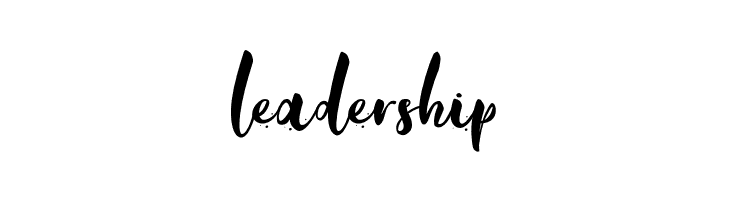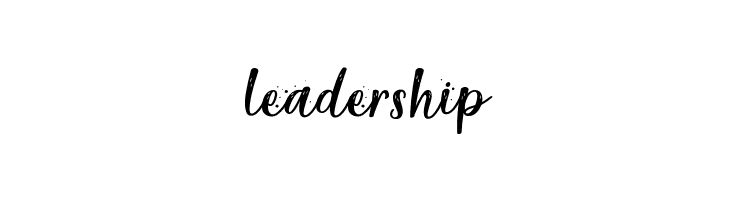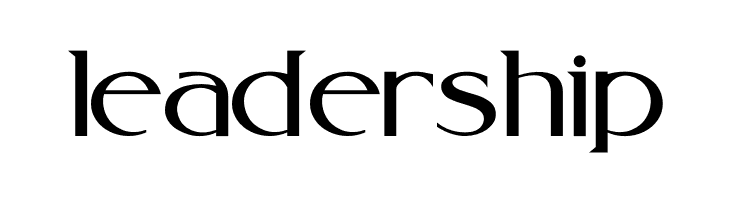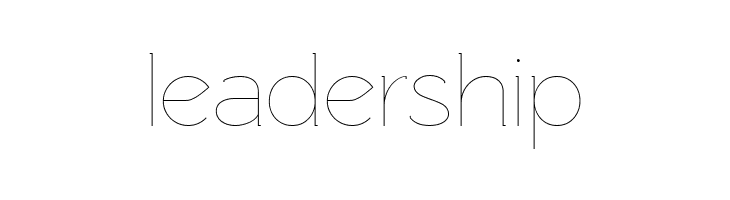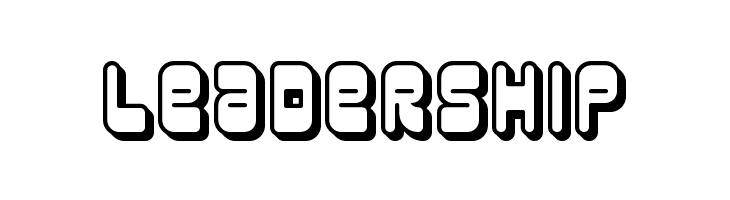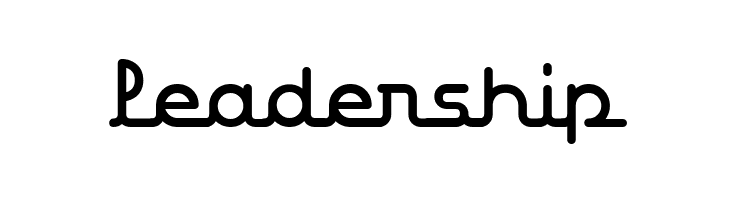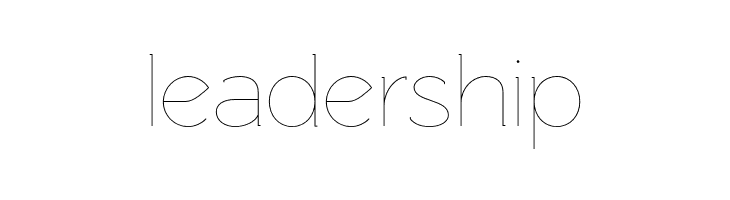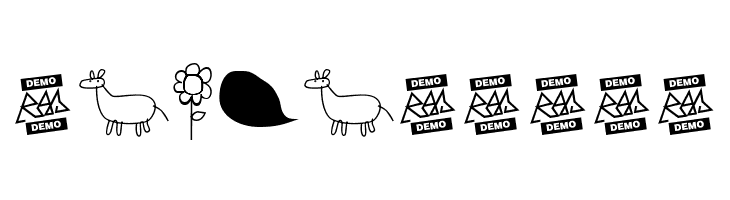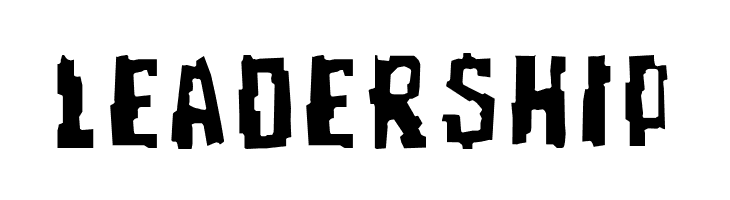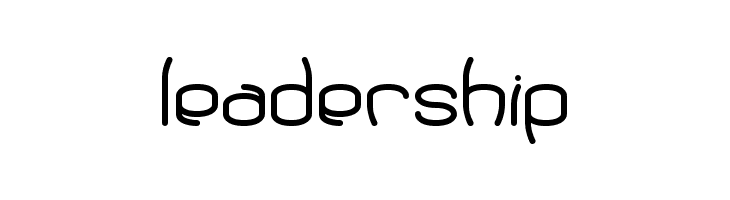
( Fonts by Grzegorz l - www.glukfonts.pl )
A minimalist, ultralight font with clean, geometric lines and consistent spacing.
An ultralight, minimalist font with clean lines and modern elegance.
( Fonts by Rodrigo German - RASDESIGN )
A playful collection of hand-drawn dingbats featuring whimsical designs.
( Fonts by Rodrigo German - RASDESIGN )
A playful, irregular font with a hand-drawn, whimsical style.
A bold, outlined font with a playful, retro style.
( Caveras - Cliff Modes - caveras.net )
A pixelated, grid-based font with a retro digital aesthetic.
A graffiti-inspired font with sharp, angular lines and an edgy, rebellious style.
A dynamic, expressive script font with a playful, handwritten style.
A bold, brush-style script font with a dynamic and artistic flair.
( Typhoon Type - Suthi Srisopha - www.typhoontype.net )
A dynamic cursive font with bold, sweeping strokes and elegant curves.
A bold, geometric font with rounded edges and a futuristic style.
Bold, playful font with a shadow effect for a 3D look.
( Fonts by Jay Batchelor )
A modern, artistic font with sharp angles and smooth curves.
A modern, elegant font with sharp angles and smooth curves.
( Alex Dale - www.behance.net/alexiandale )
A bold, geometric font with sharp angles and a modern industrial feel.
A bold, narrow font with high contrast and sharp angles.
( Fonts by pheist.net - Stefanie Koerner )
A pictogram dingbat font with eclectic, illustrated symbols.
A playful, festive handwritten font with bold, rounded characters.
( Fonts by www.smeltery.net )
A playful, interconnected font with a modern and flowing design.
A modern script-sans hybrid with smooth, connected strokes and a dynamic feel.
( Rengga Eka Zulkarnaen - www.behance.net/kamigawietd2f7 )
A dynamic, handwritten font with a casual and energetic style.
A playful, festive font with a handwritten touch, ideal for holiday themes.
( be.net/gr81life )
A geometric and abstract font with intersecting lines and shapes.
( be.net/gr81life )
A geometric and abstract font with sharp angles and straight lines, offering a futuristic look.
A bold, rugged font with a graffiti-inspired, three-dimensional look.
( Fonts by www.tepidmonkey.net )
A pixelated, retro-style font with a blocky, geometric design.
A bold, futuristic font with geometric and stencil-like design.